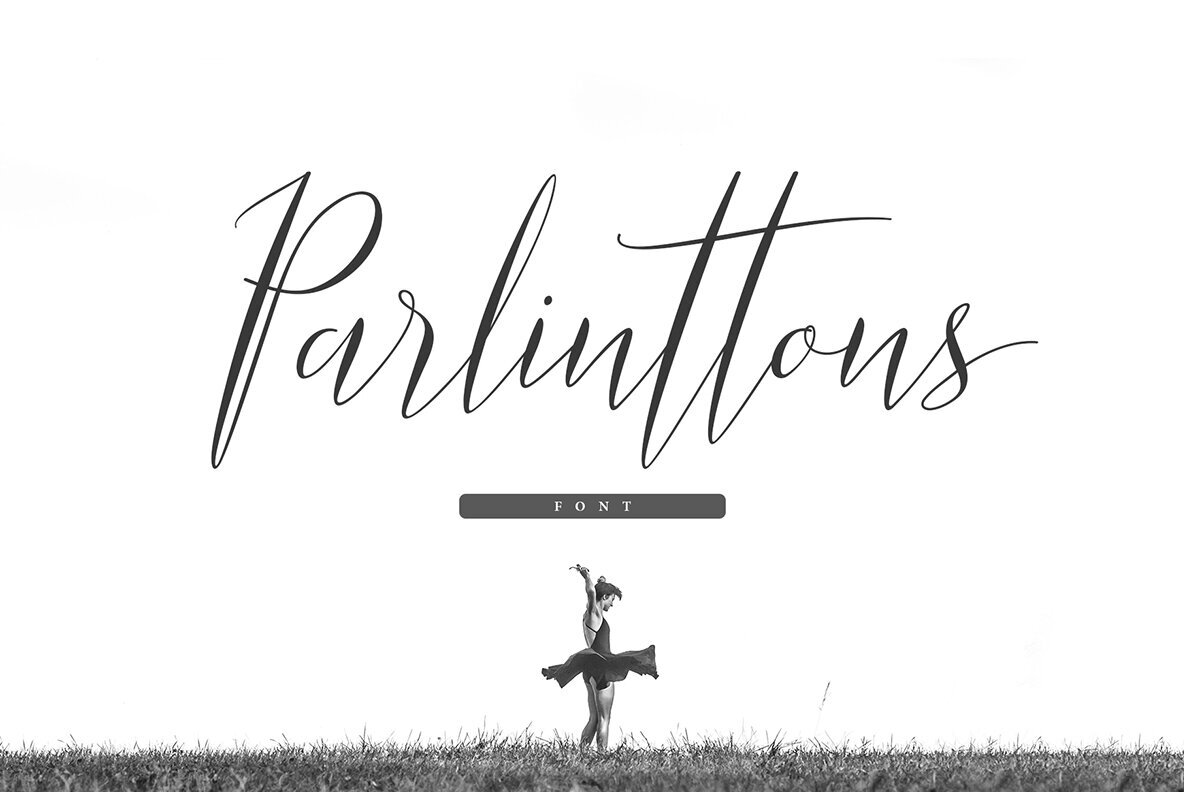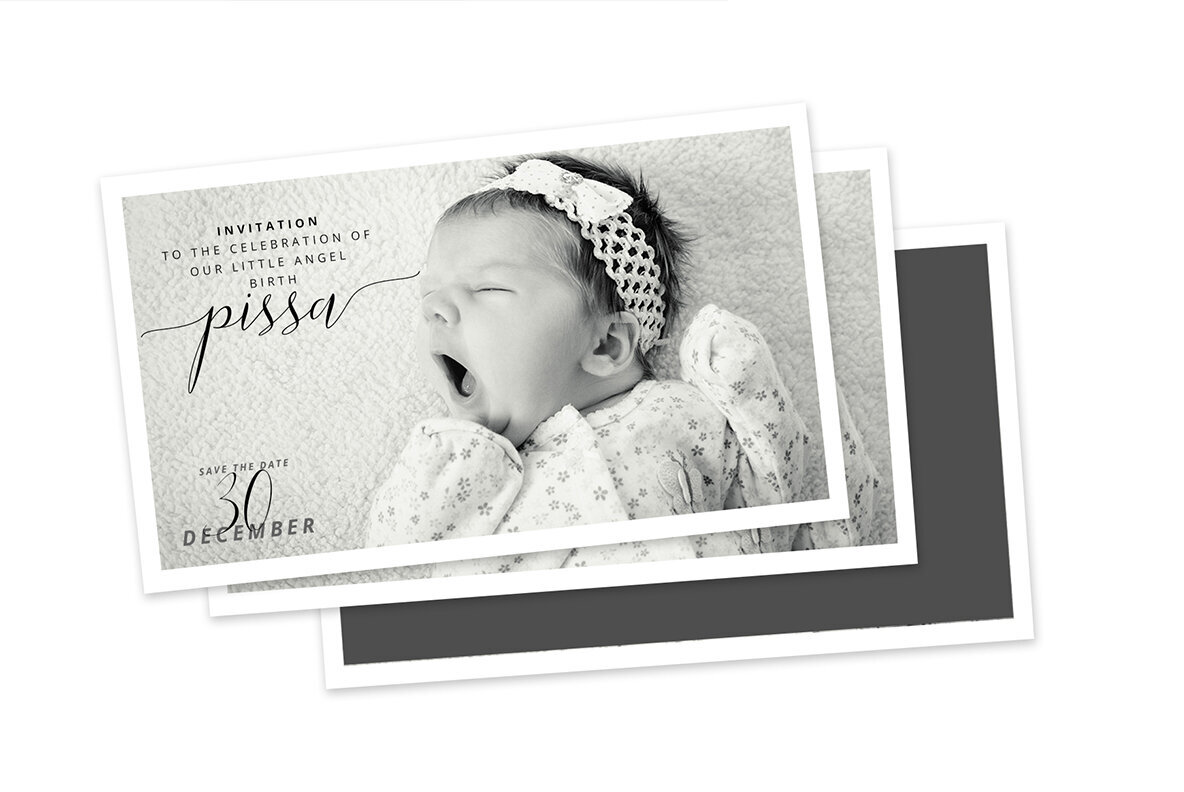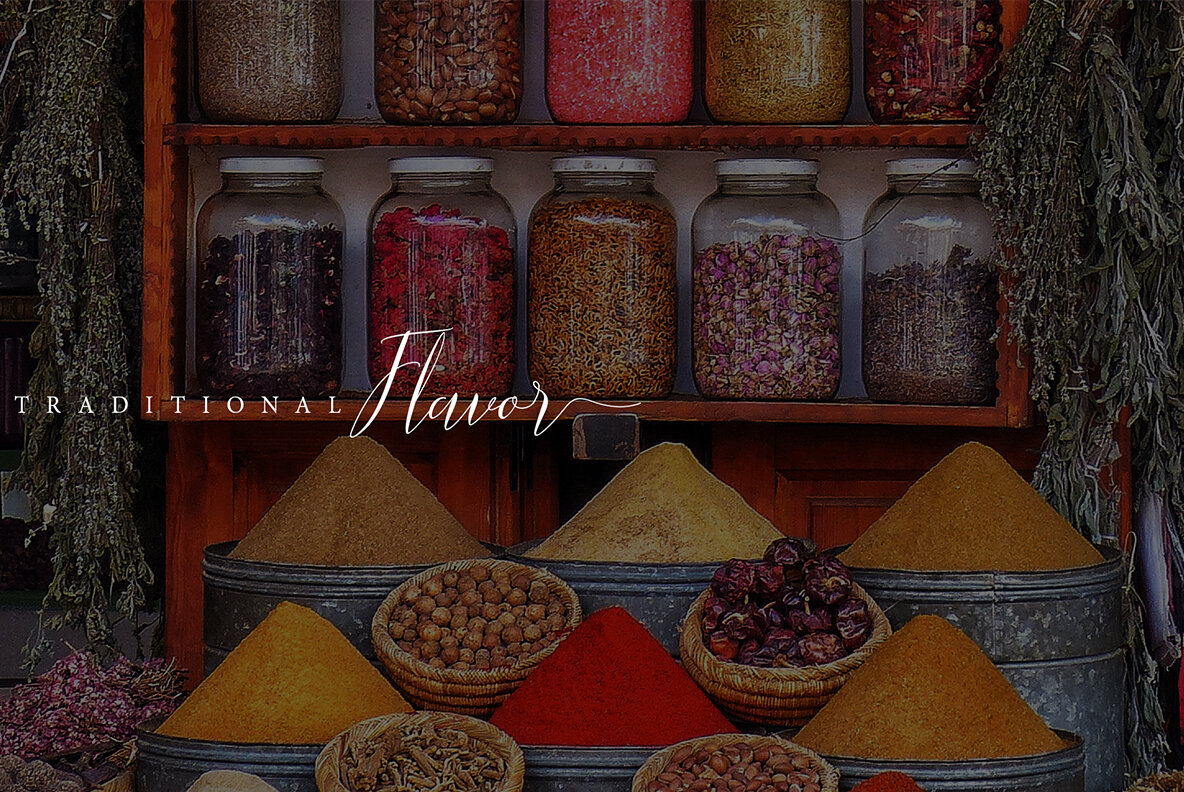
Parlinttons Font
Parlinttons Script
Introducing Parlinttons Script—a sophisticated calligraphy script typeface that redefines elegance. Designed by FadeLine Studio, this font offers a blend of trendiness, naturalness, and softness, making it perfect for contemporary design needs. Its versatility shines in styles like watercolor, minimalist, and modern design, allowing you to create visually stunning and captivating designs with ease. Beyond aesthetics, Parlinttons Script is highly functional. Ideal for an array of projects including posters, shopping bags, titles, insignias, badges, t-shirts, logos, branding, and more. Its comprehensive feature set includes a complete range of uppercase and lowercase letters, punctuation, numbers, and multilingual support. With its ligatures and alternative stylistic sets, it's perfect for software capable of OpenType functionality like Corel Draw, Photoshop, Illustrator, and InDesign.Parlinttons Script Typeface